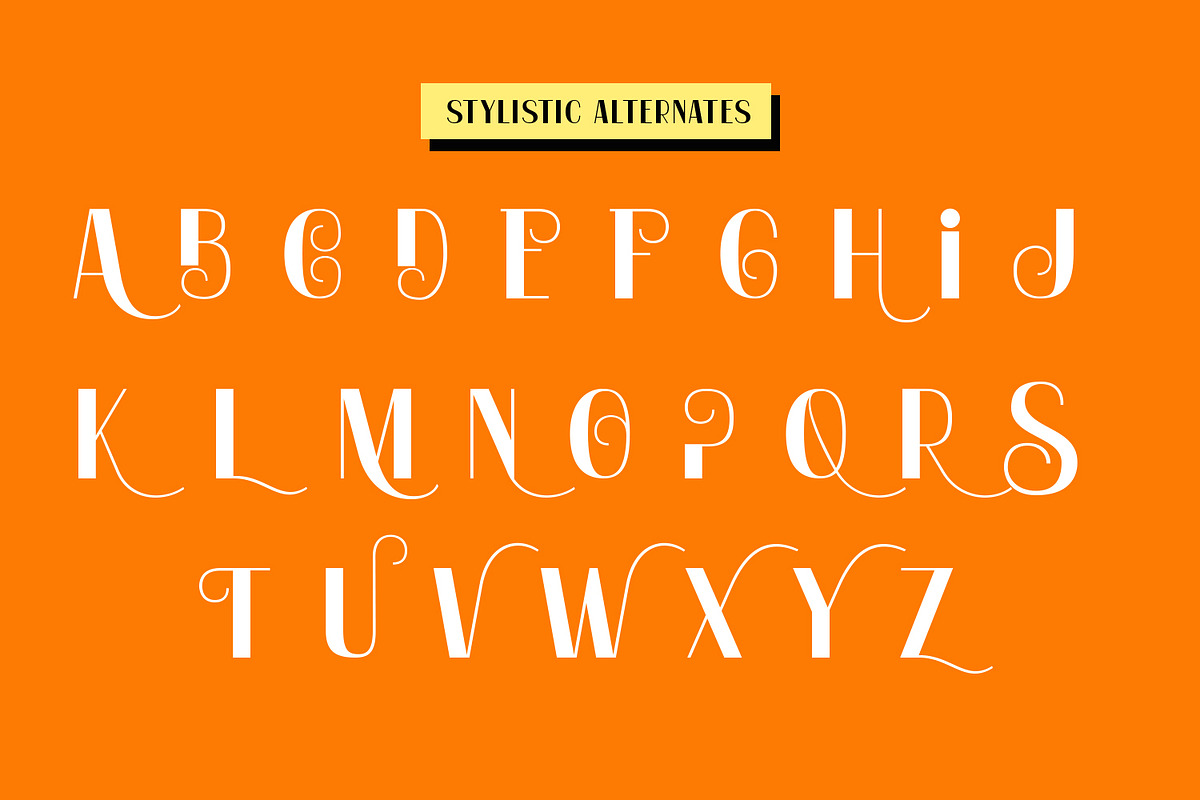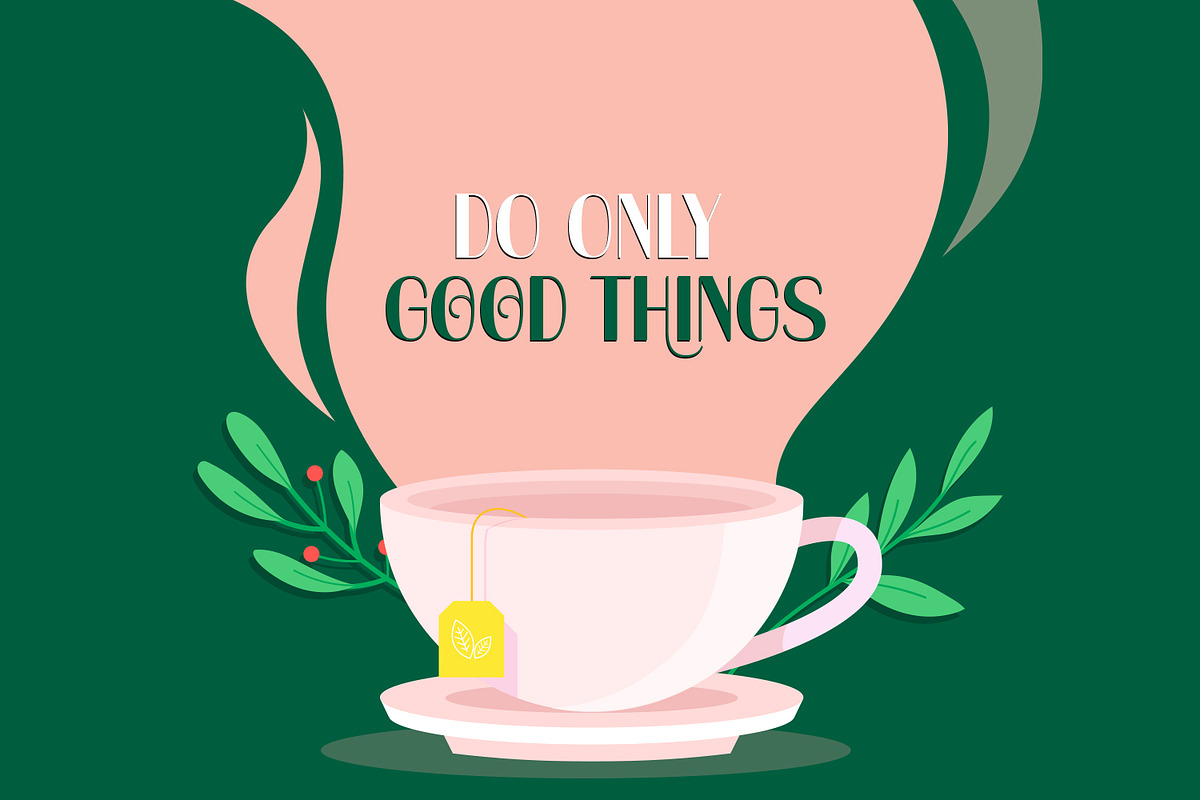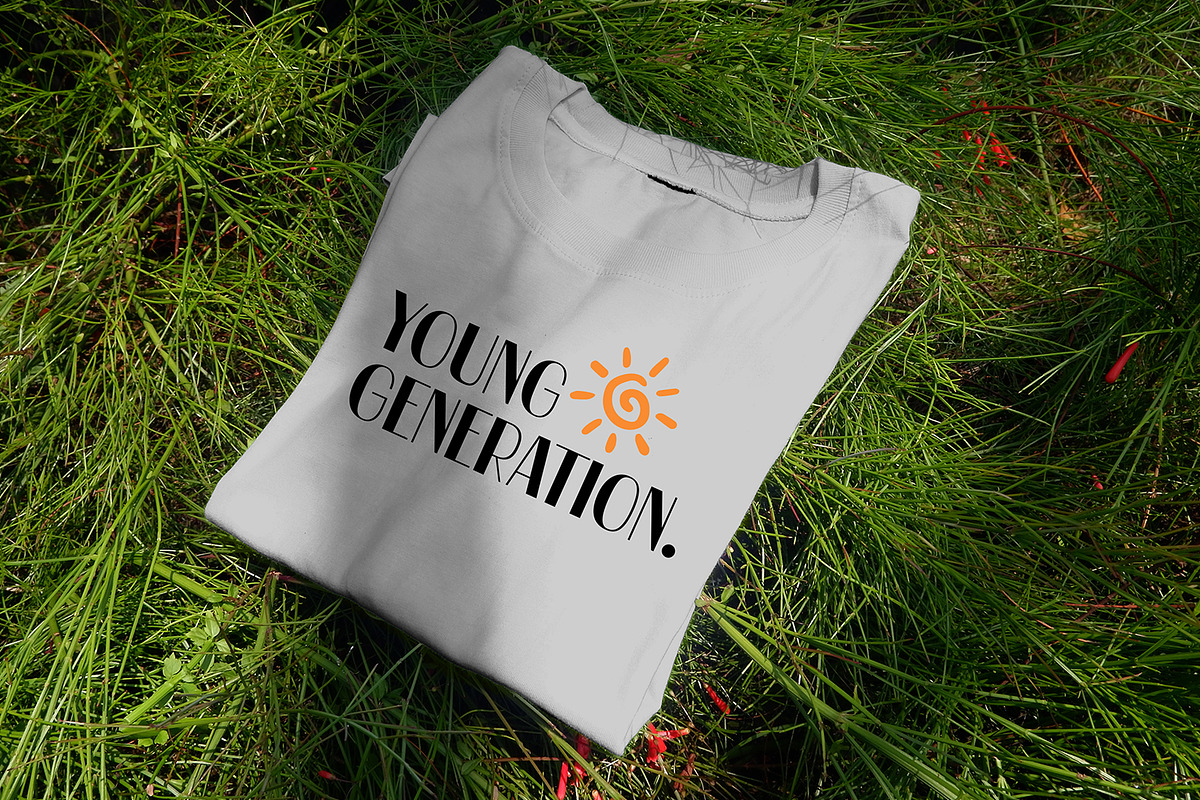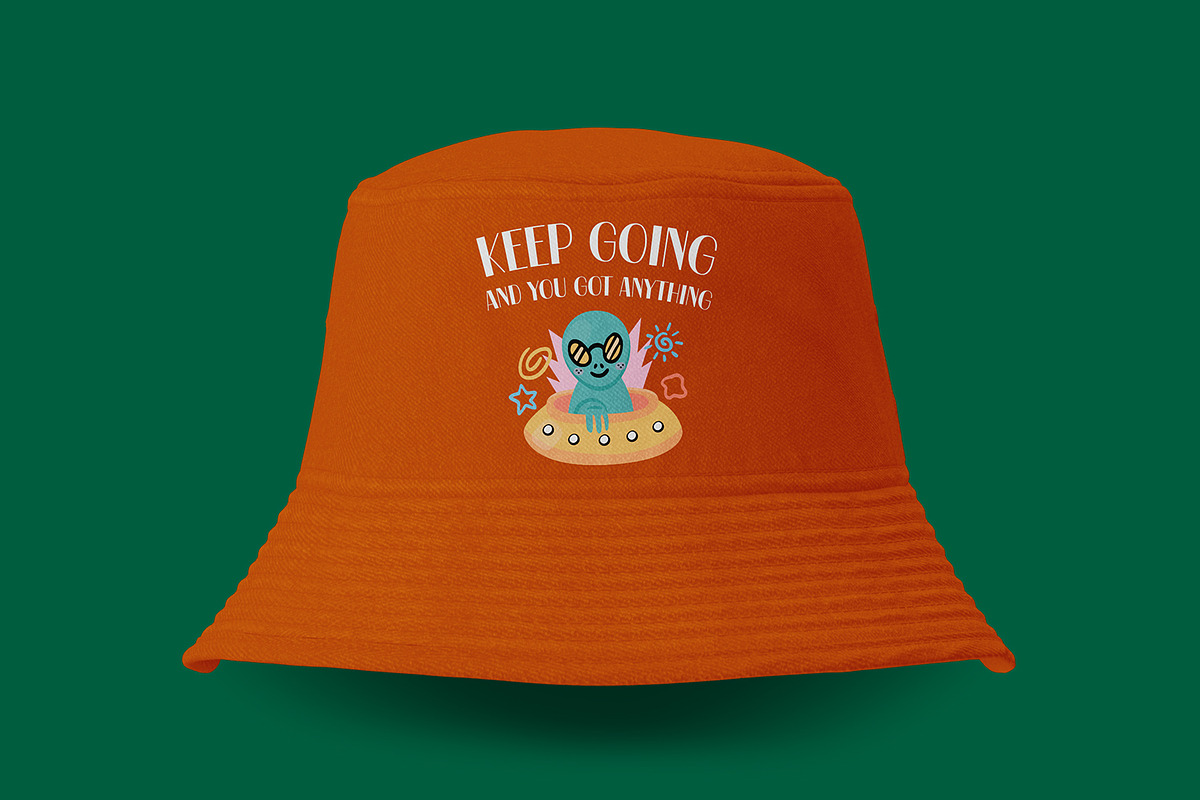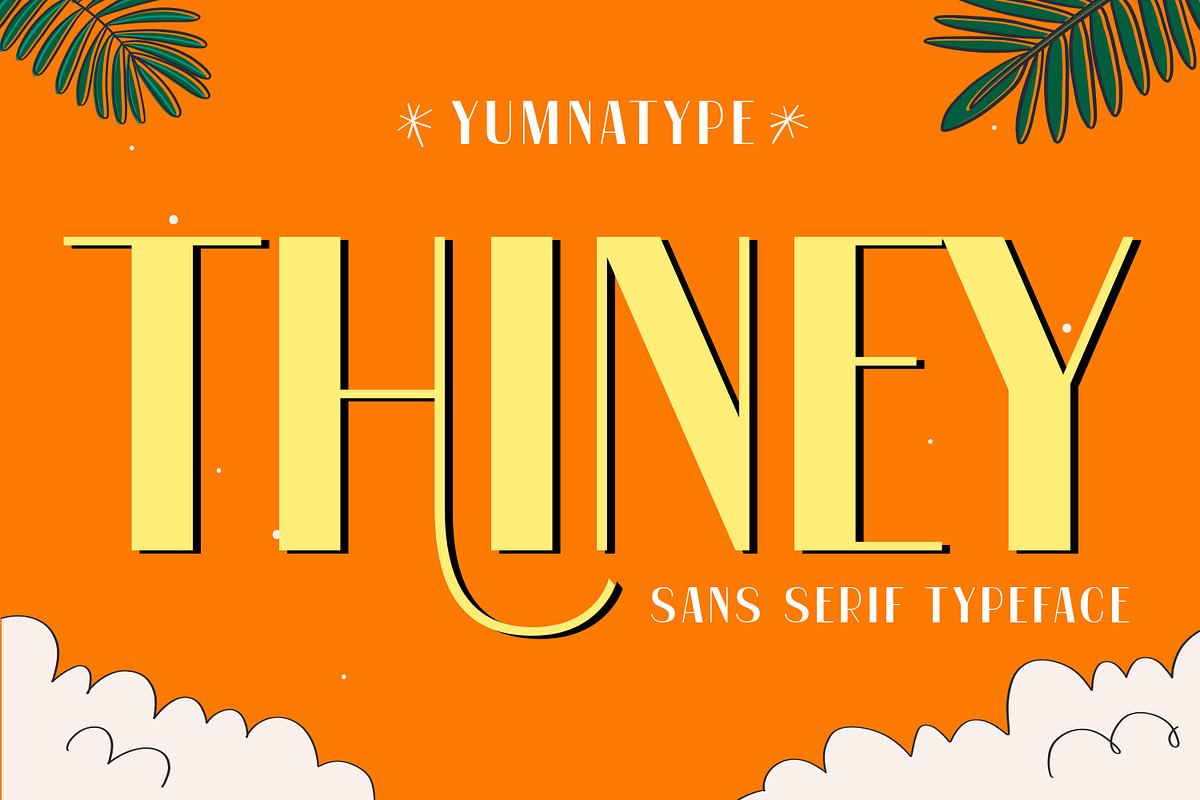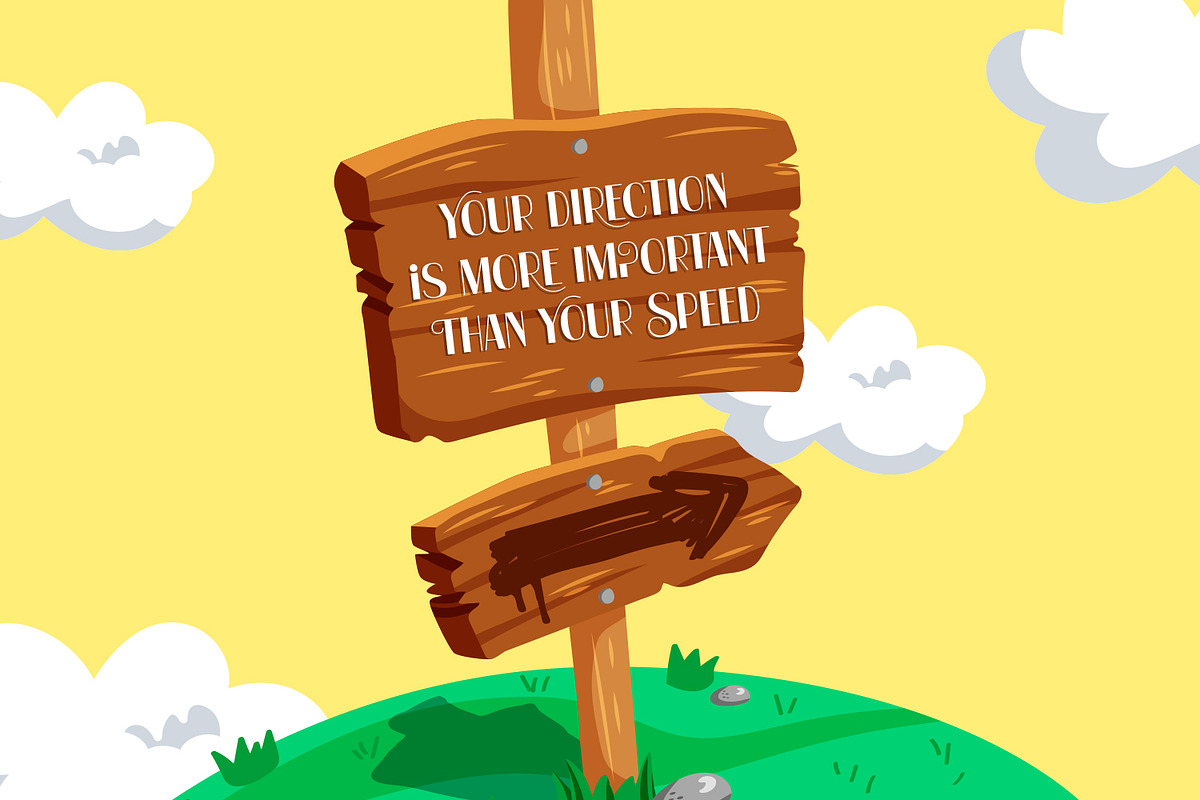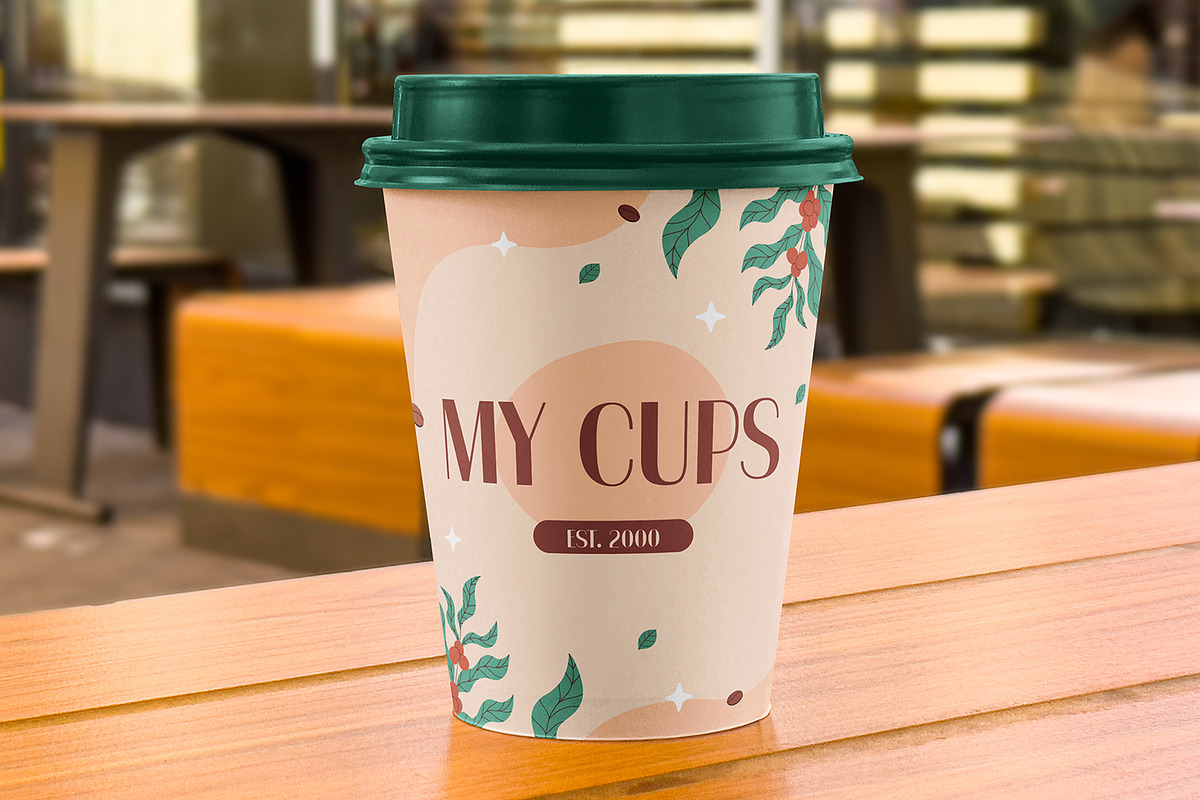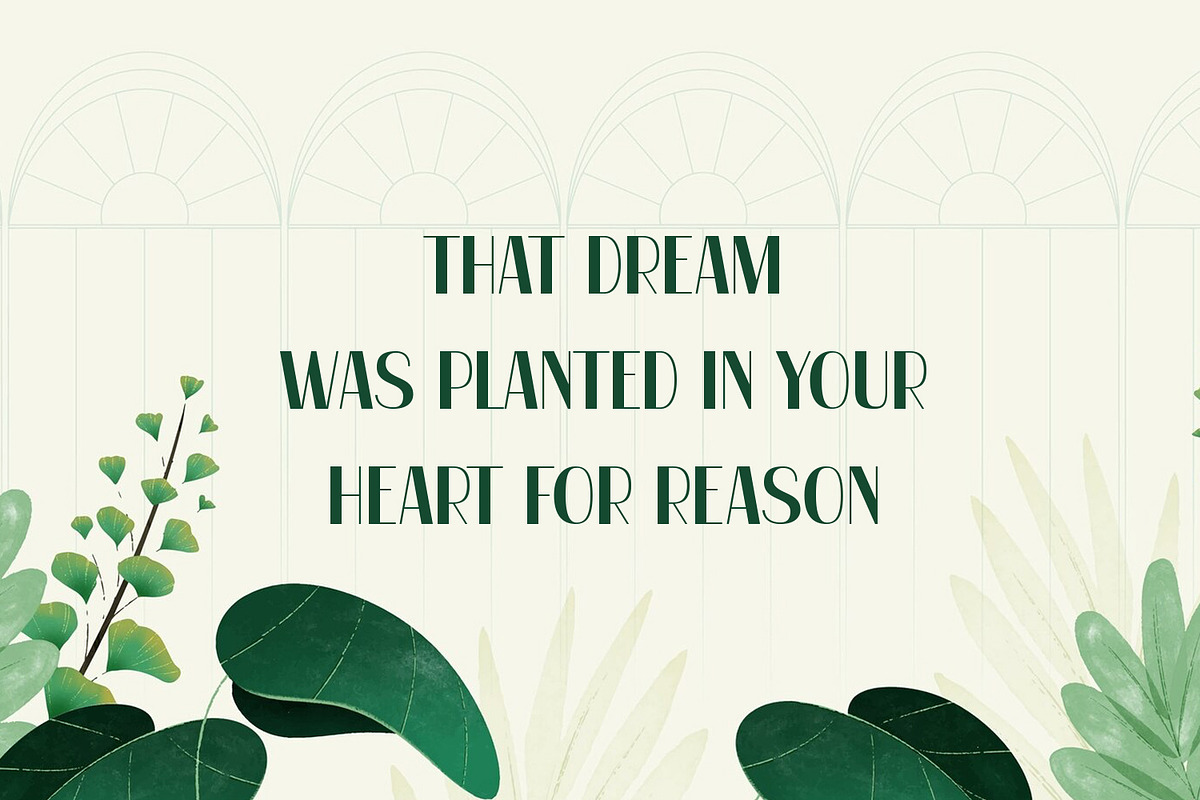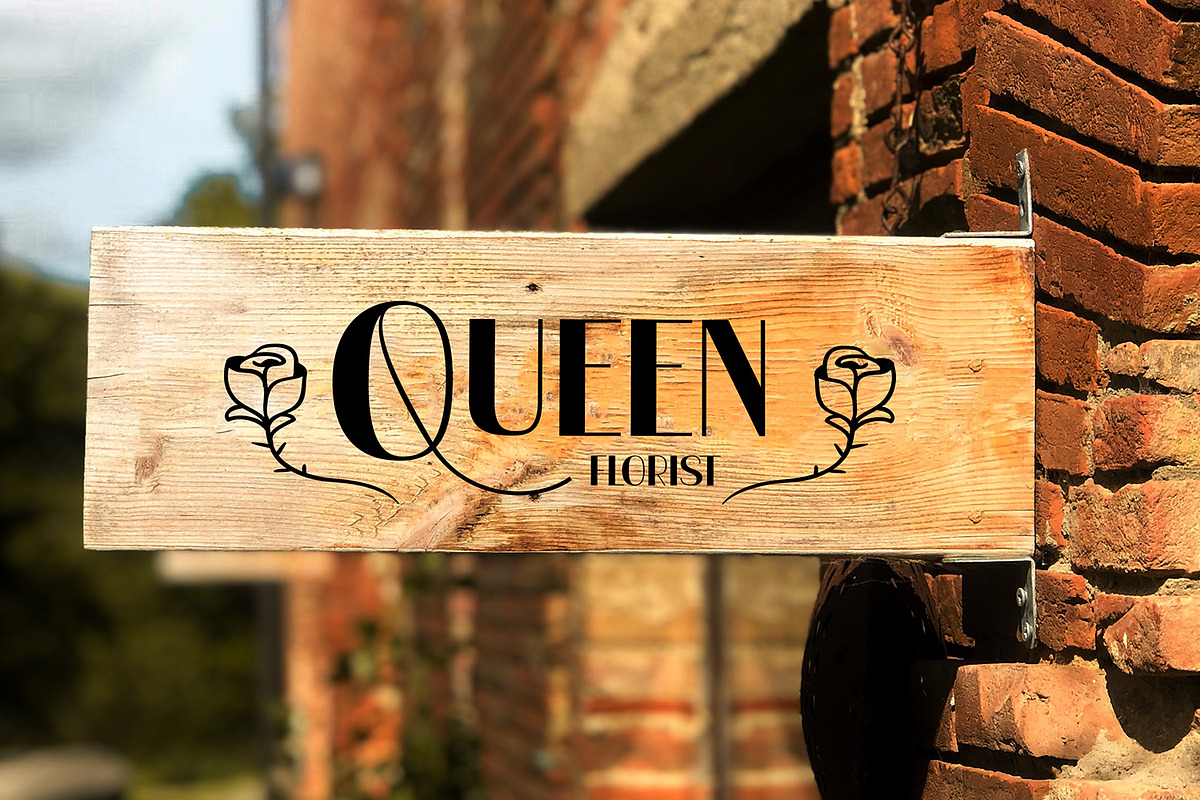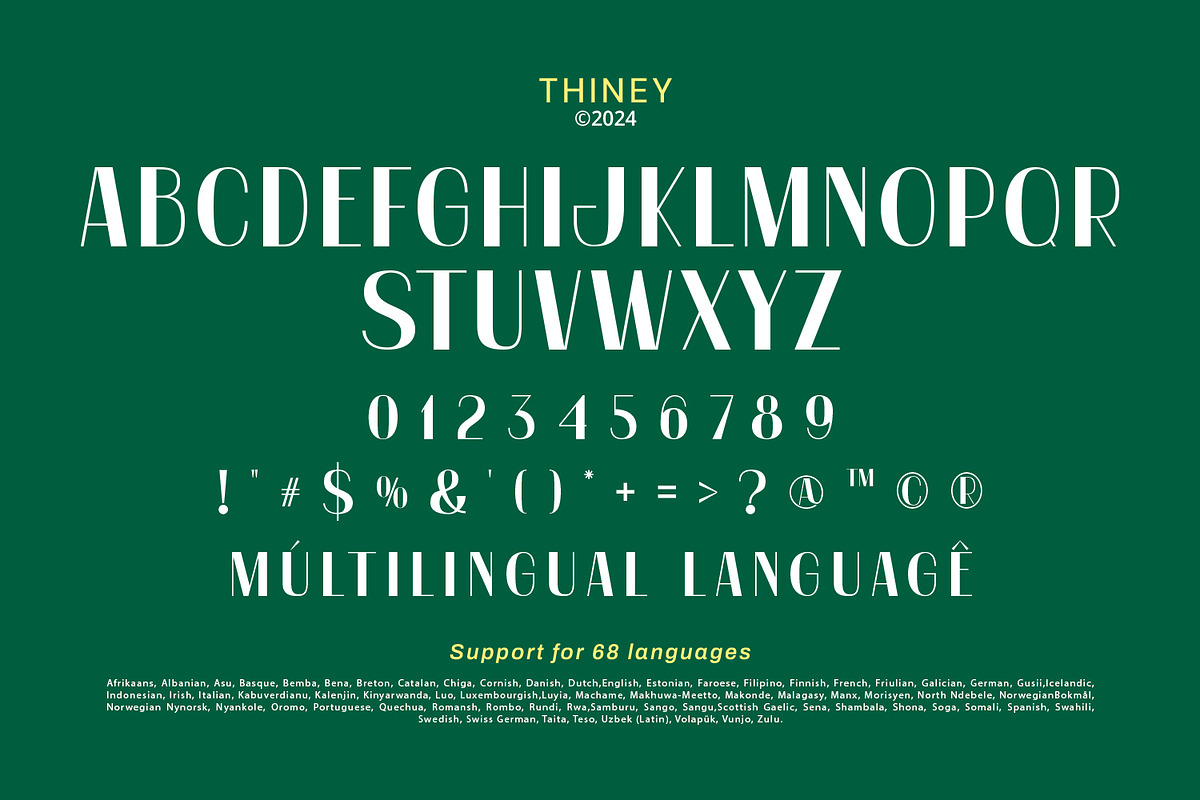
Thiney
Thiney is an all-caps sans serif font that combines modern elegance with high visibility. Each character is designed with a weight that is not too bold, providing a sleek and refined appearance. What sets Thiney apart is the pronounced contrast in the letters, creating a dynamic and striking visual effect. This contrast also enhances readability. Thiney's contemporary style and distinct letterforms make it a versatile choice for a wide range of applications. In addition, enjoy the features here.
Thiney fits in headlines, logos, posters, flyers, branding materials, print media, editorial layouts, and many more designs. Find out more ways to use this font by taking a look at the font preview.